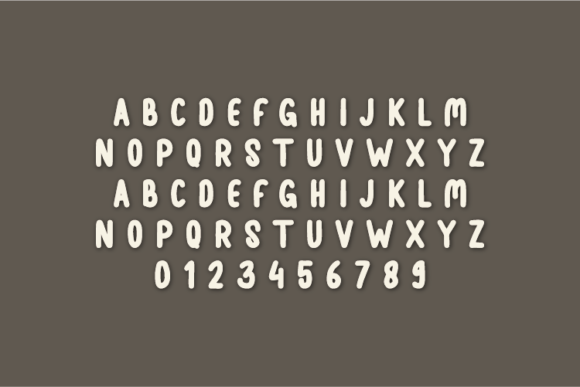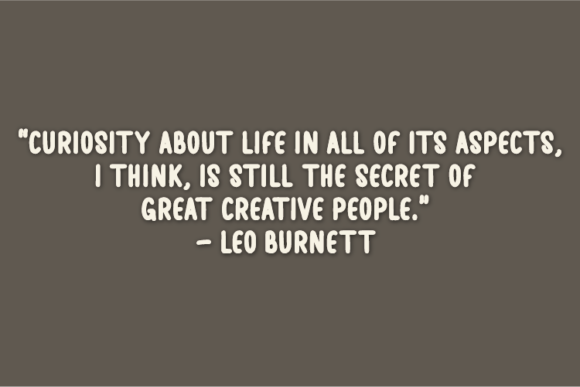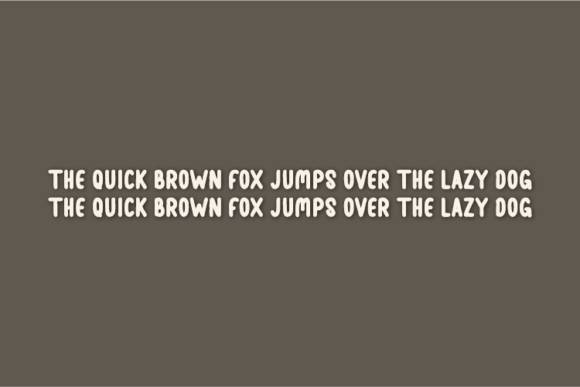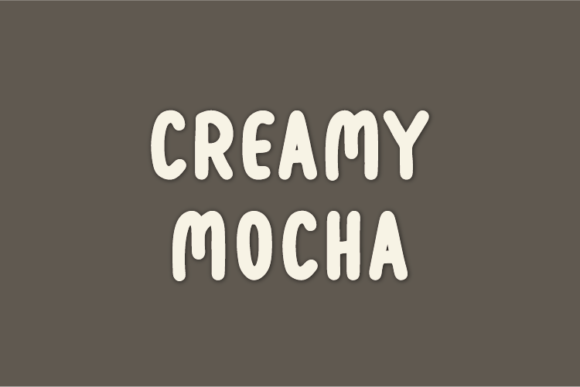
Creamy Mocha Font: The Unique Sans Serif for Your Design Needs
Are you tired of using the same old fonts for your designs? Look no further than the Creamy Mocha font, a natural sans serif font that’s sure to make your work stand out. What makes Creamy Mocha truly unique is its distinctive approach to font creation. Unlike other fonts, Creamy Mocha was crafted without changing a single node in each character’s indentation, giving it a one-of-a-kind look that’s both interesting and visually appealing.
The Story Behind Creamy Mocha
The creators of Creamy Mocha set out to craft a font that would break away from the conventional norms of typography. By preserving the natural indentation of each character, they were able to create a font that’s not only aesthetically pleasing but also retains a sense of authenticity. This attention to detail and commitment to uniqueness has resulted in a font that’s perfect for designers and crafters looking to add a touch of personality to their work.
What Makes Creamy Mocha So Versatile?
Creamy Mocha’s versatility is one of its greatest strengths. This font can be used for a wide range of design projects, from quotes and notes to tees and product design. Its clean and simple sans serif style makes it easy to read and understand, while its unique character indentation gives it a touch of whimsy and flair. Whether you’re working on a branding project, creating social media graphics, or designing merchandise, Creamy Mocha is a great choice.
Creamy Mocha is a font that’s specifically suited to the needs of designers and crafters. Its unique look and feel make it perfect for a wide range of projects, from handmade crafts to professional design work. Here are just a few ways you can use Creamy Mocha to enhance your designs:
• Quotes and Notes: Add a touch of personality to your quotes and notes with Creamy Mocha’s unique font style.
• T-Shirts and Merchandise: Create eye-catching designs for t-shirts, hoodies, and other merchandise with Creamy Mocha’s bold and playful font.
• Product Design: Use Creamy Mocha to add a touch of whimsy to your product designs, from packaging to branding materials.
• Social Media Graphics: Stand out on social media with Creamy Mocha’s unique font style, perfect for creating eye-catching graphics and posts.
Why Choose Creamy Mocha?
So why choose Creamy Mocha over other fonts? Here are just a few reasons:
• Unique Look: Creamy Mocha’s distinctive font style sets it apart from other sans serif fonts.
• Versatility: This font can be used for a wide range of design projects, from quotes and notes to product design and merchandise.
• Ease of Use: Creamy Mocha is easy to read and understand, making it perfect for designs where clarity is key.
• Authenticity: With its natural indentation and unique character design, Creamy Mocha has a sense of authenticity that’s hard to find in other fonts.
If you’re looking for a font that’s a little bit different, a little bit unique, and a lot of fun, look no further than Creamy Mocha. With its natural sans serif style and distinctive character indentation, this font is perfect for designers and crafters looking to add a touch of personality to their work. Whether you’re working on a branding project, creating social media graphics, or designing merchandise, Creamy Mocha is a great choice. So why wait? Give Creamy Mocha a try today and see the difference it can make in your designs!